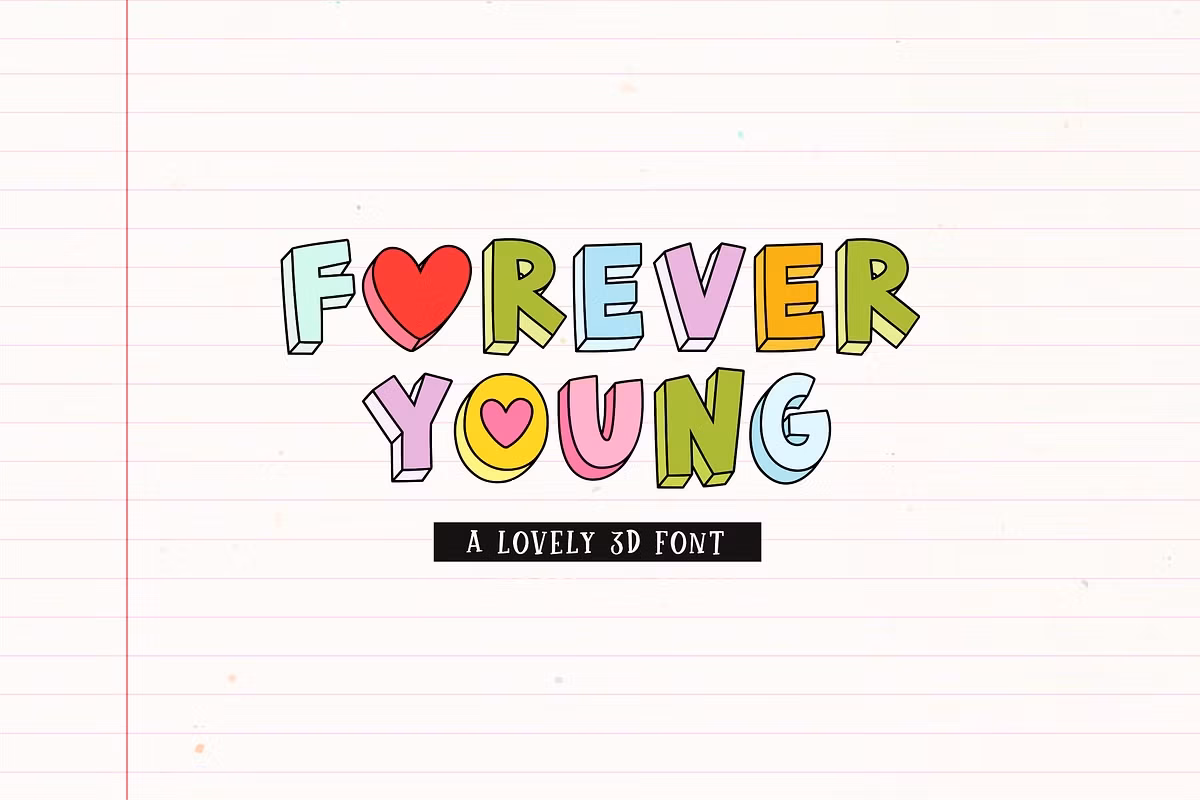
FOREVER YOUNG Font Free Download is a bold and playful typeface that captures the carefree spirit of youth with a modern twist. Please note: you must purchase this font for commercial use, but you can test it through a free download. With its chunky shapes, fun curves, and high-energy vibe, FOREVER YOUNG is perfect for social media graphics, kids’ branding, lifestyle products, posters, and creative packaging.
This font is full of personality—ideal for designers who want their work to feel fresh, fun, and full of life. Whether you're creating a trendy logo or an upbeat quote graphic, FOREVER YOUNG Font Free Download brings color and character to every design. It’s fully compatible with Adobe Illustrator, Photoshop, Canva, and more. Download it today for personal use and let your creativity shine with the bold, youthful energy of FOREVER YOUNG.